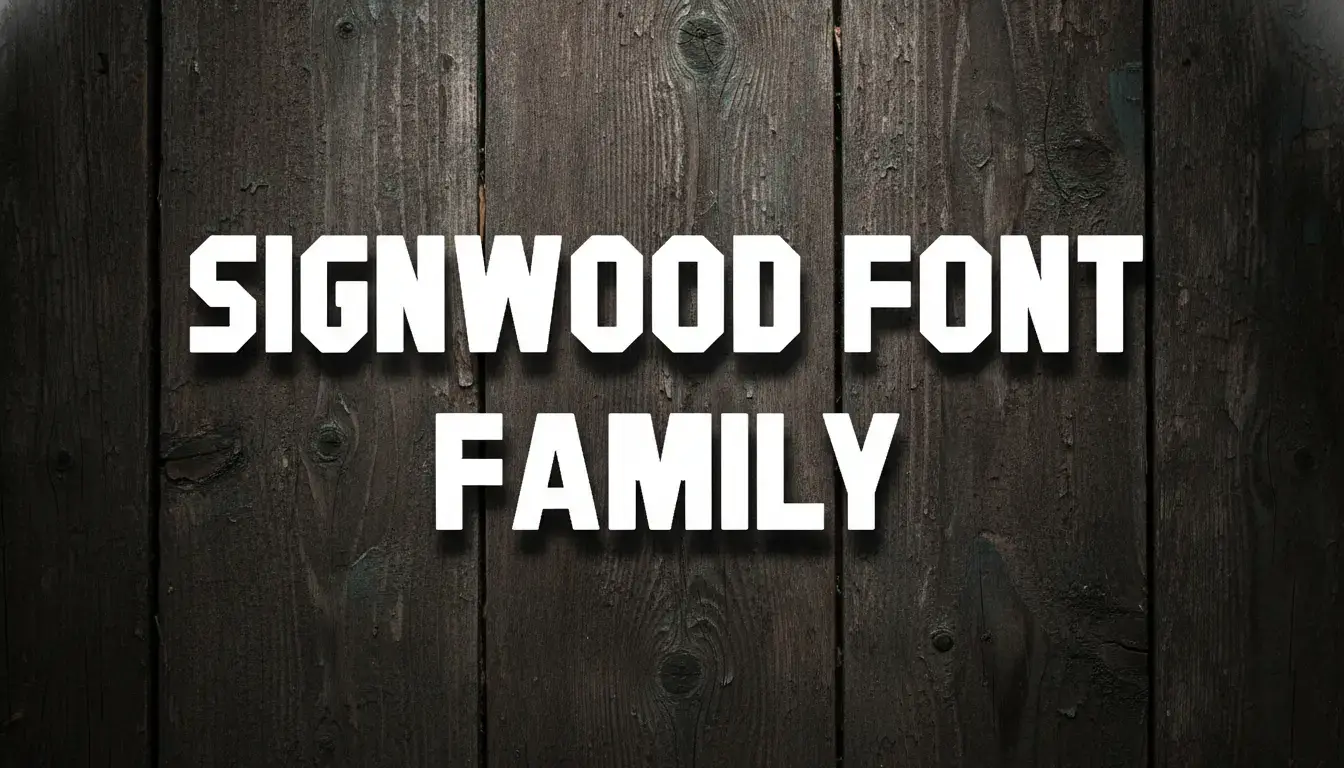
Signwood Font
Signwood
Signwood is a fancy font made by GGBotNet. It's a decorative display font with plenty of personality, made to grab attention. The free download includes two styles, and you can try every one of them with your own text in the preview above.
- Languages: English and German
What You Can Type With Signwood
You get every letter from A to Z in both cases and all the numbers from 0 to 9, which means Signwood can handle full sentences, dates and prices. Everyday marks like &, !, ? and @ are there too. Thanks to its accented letters, it also works for German, not just English.
Where Signwood Works Best
Signwood is a natural fit for posters, logos and eye-catching headlines. Use it for one standout word or headline and let simpler fonts handle the rest. Because the family has more than one style, you can mix them in a single design for headings, subheadings and highlights.
Does Signwood support accented letters?
Yes. Signwood includes the accented letters needed for German, so it works for more than just English.